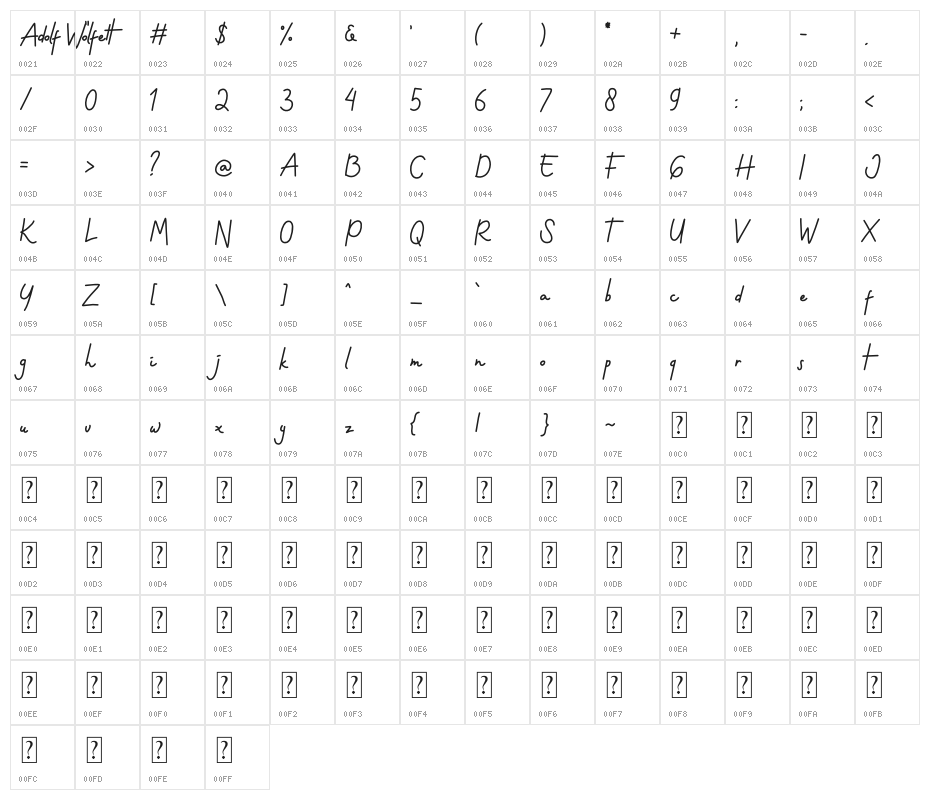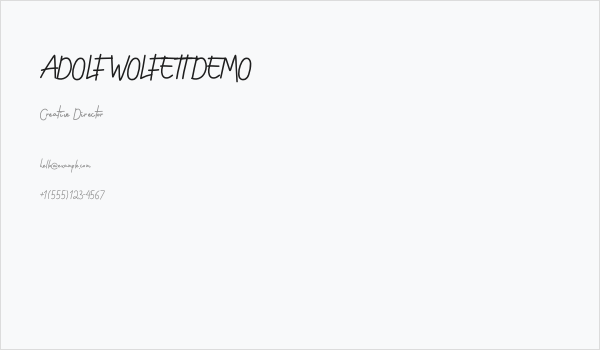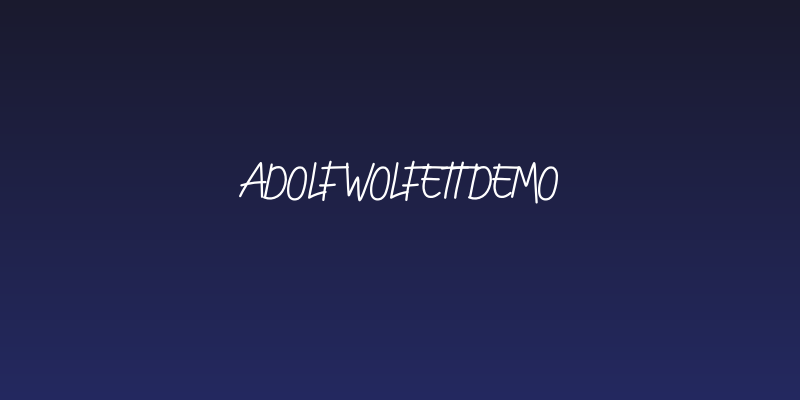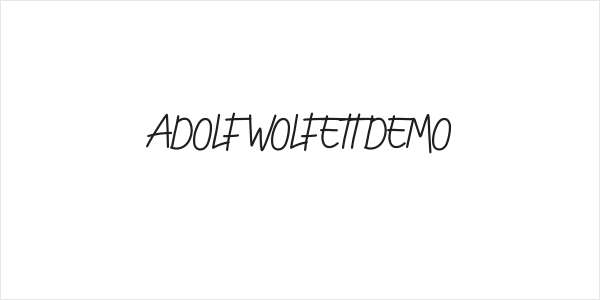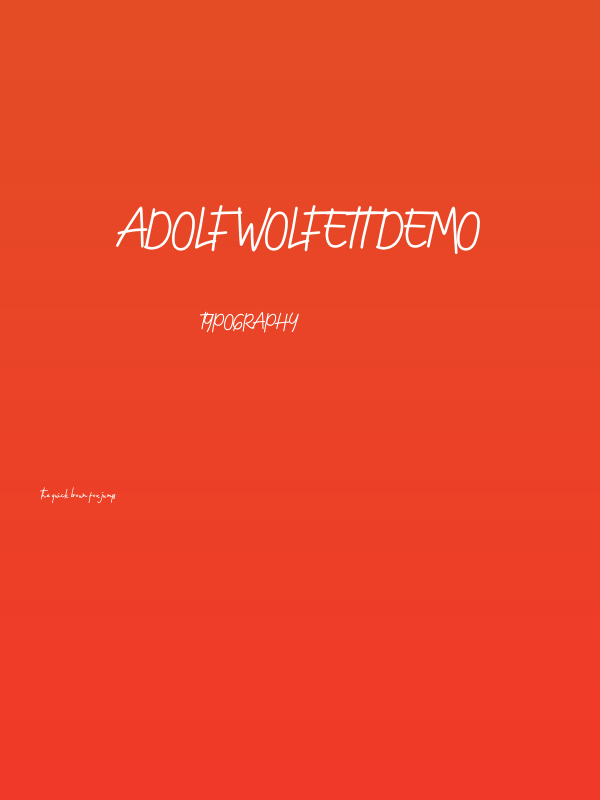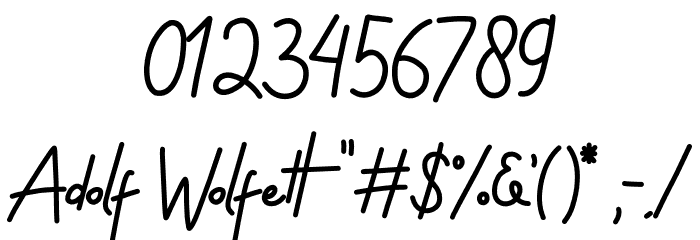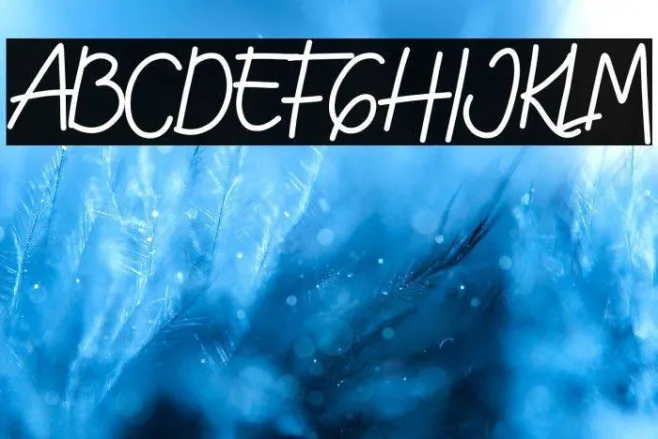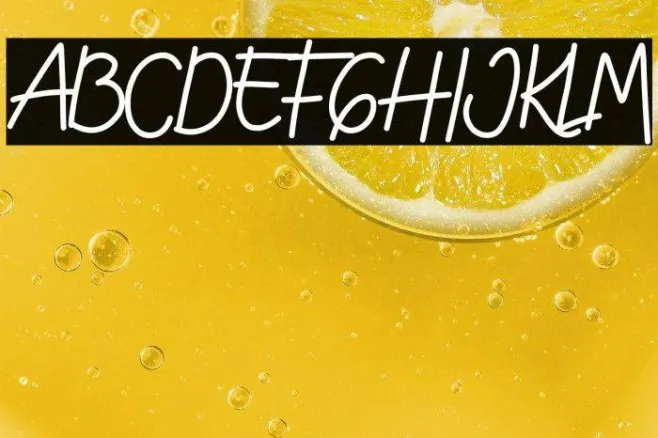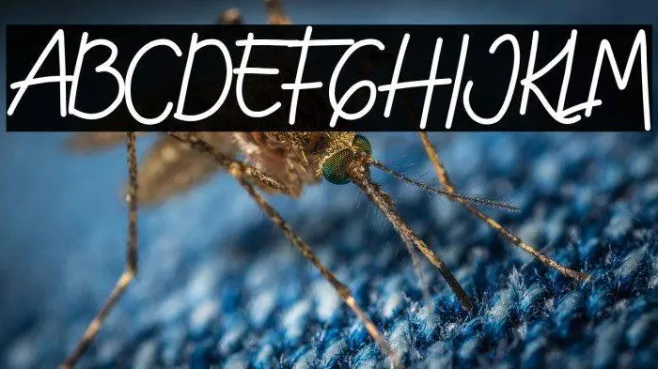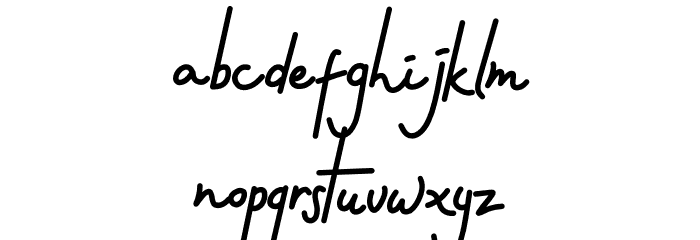
ADOLF WOLFETT DEMO Font
ADOLF WOLFETT DEMO Description
This font features a dynamic and expressive handwritten style, characterized by its fluid and slightly irregular strokes. The uppercase letters are bold and slightly slanted, giving a sense of movement and energy. The lowercase letters maintain a consistent flow, with some letters extending below the baseline, adding to the casual and informal feel. The numerals are clear and legible, matching the overall style of the alphabet. Special characters are included, maintaining the same handwritten aesthetic. This font is suitable for projects that require a personal touch or a creative flair.
| Use Case | Logos, Invitations, Creative projects |
| Proposed Projects | Ideal for personal branding, creative projects, invitations, and artistic designs. |